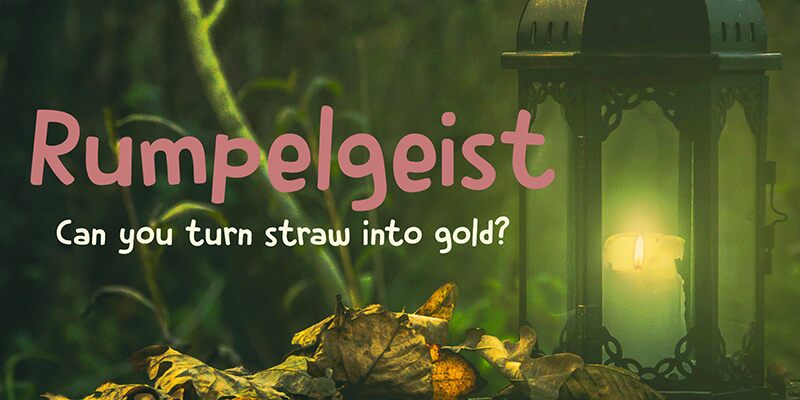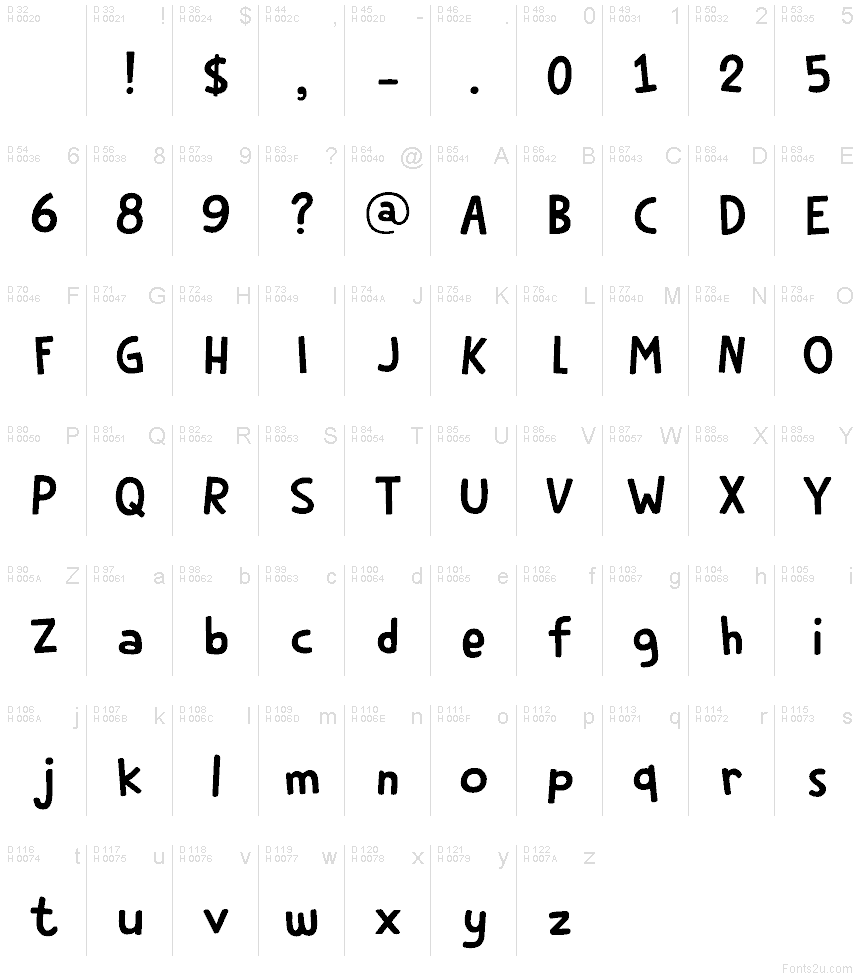
Rumpelgeist DEMO Regular
Rumpelgeist font by Hanoded is a cartoon display typeface with a casual, handwritten style and whimsical touch. Its friendly appearance and retro vibes enhance its artistic design to form clear legible texts each time. Light white streaks go over the dark letters for a shining effect.